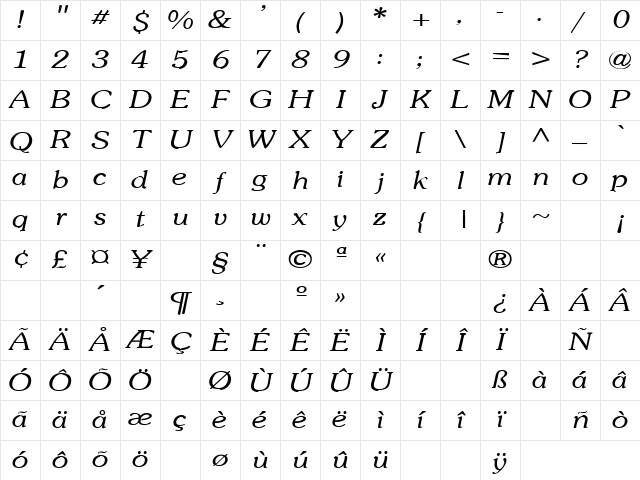
A Rollin' 1 Regular
Design Context for A Rollin' 1
A Rollin' 1 is a composed and adaptable typeface that performs quietly and consistently across a wide range of design contexts.